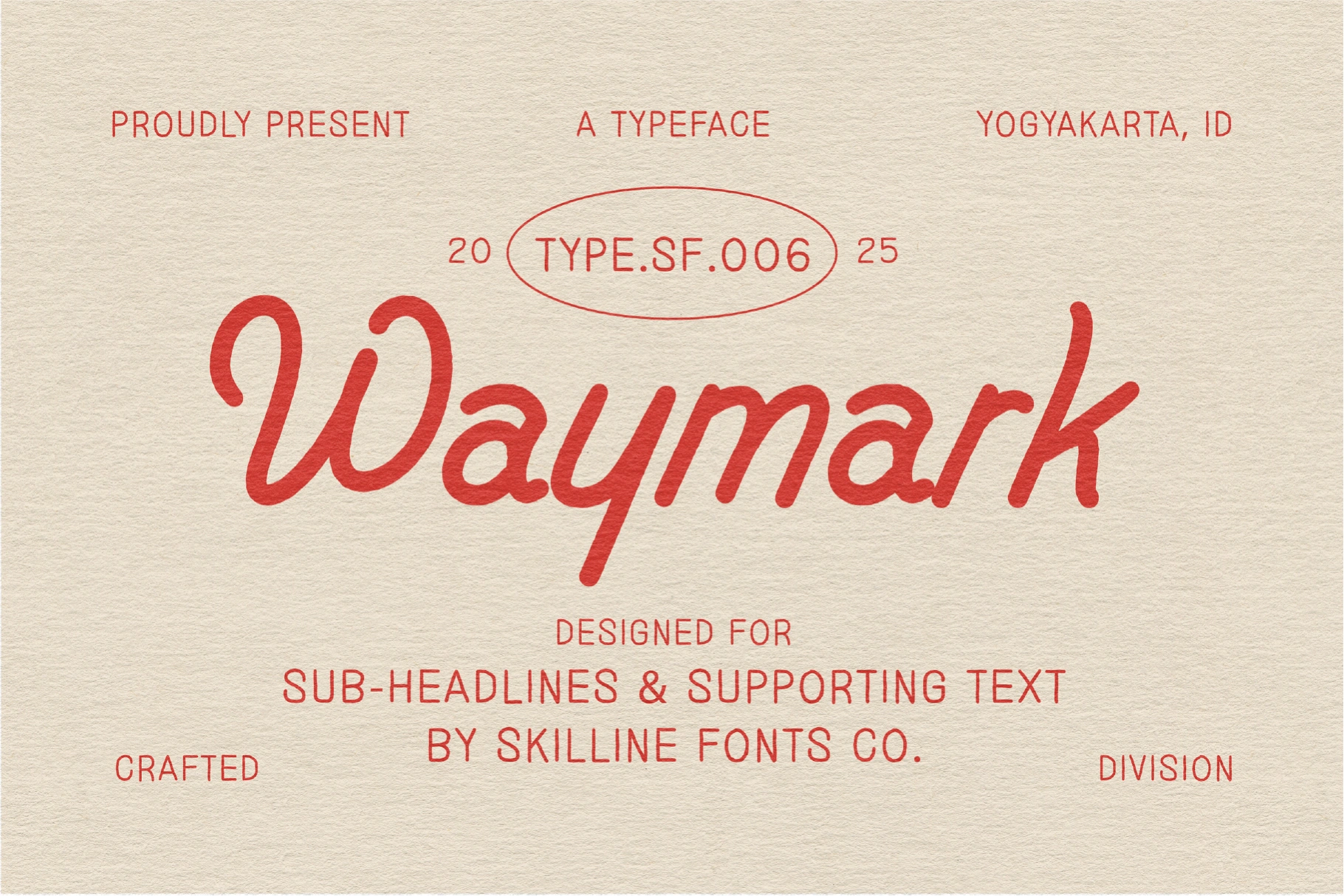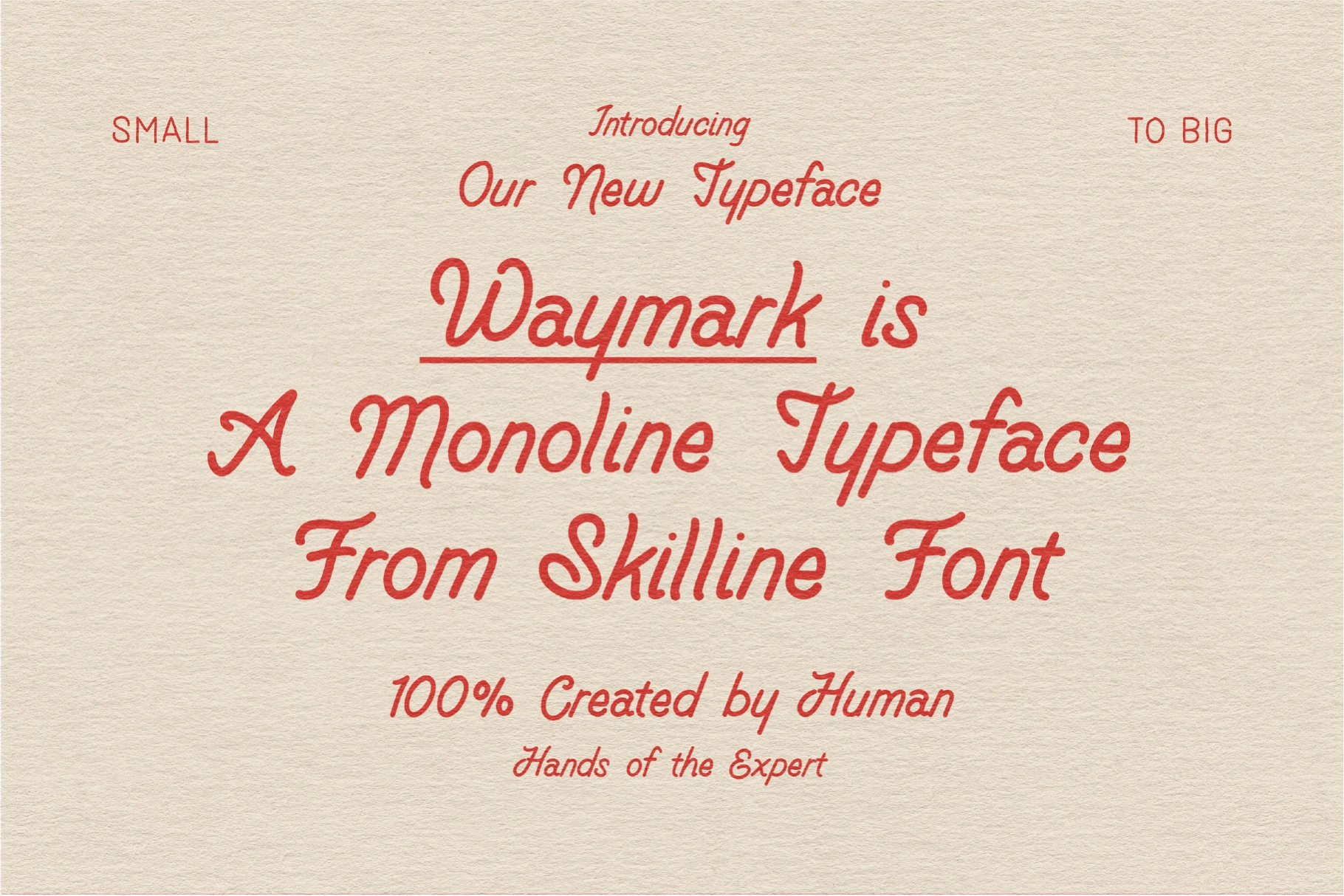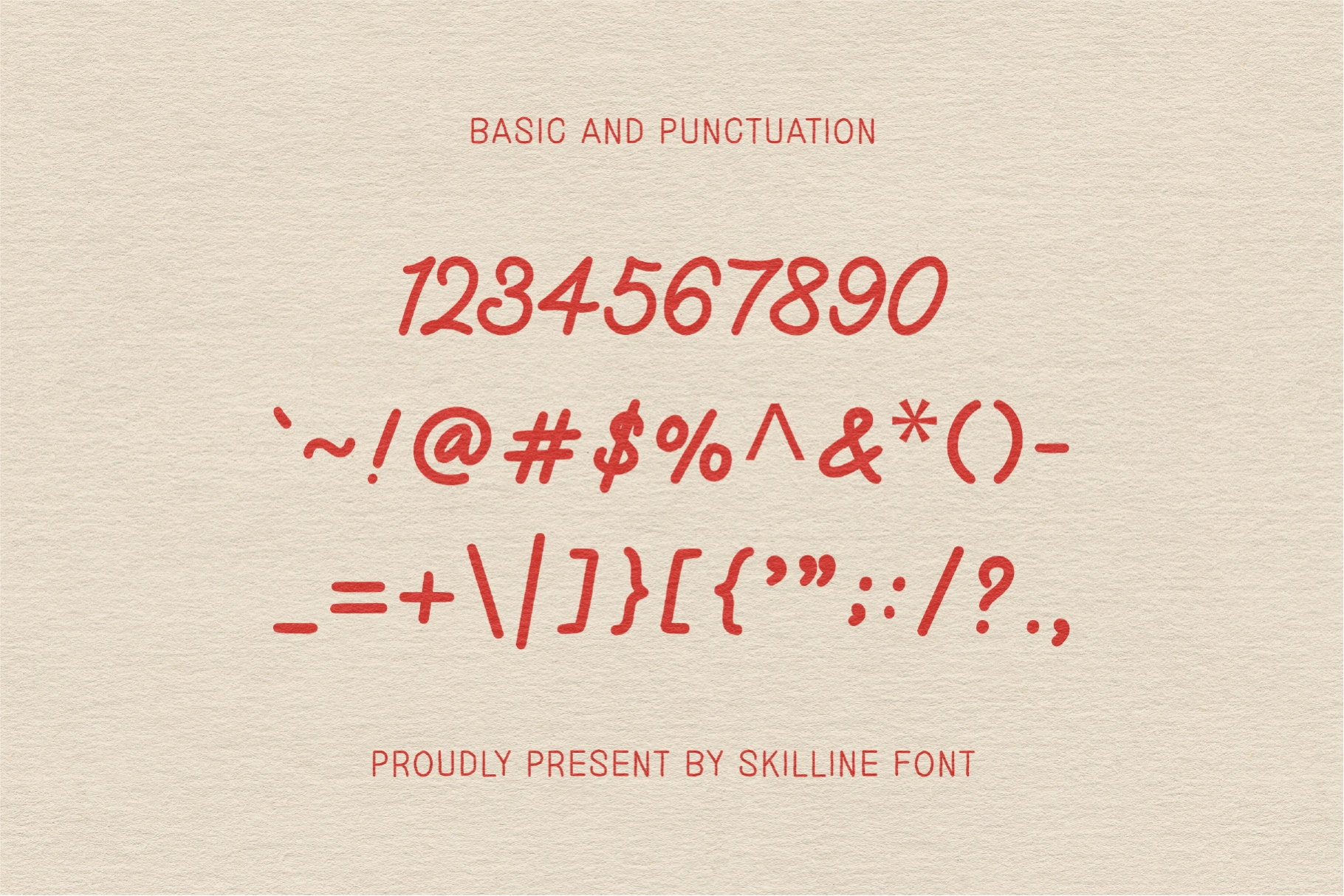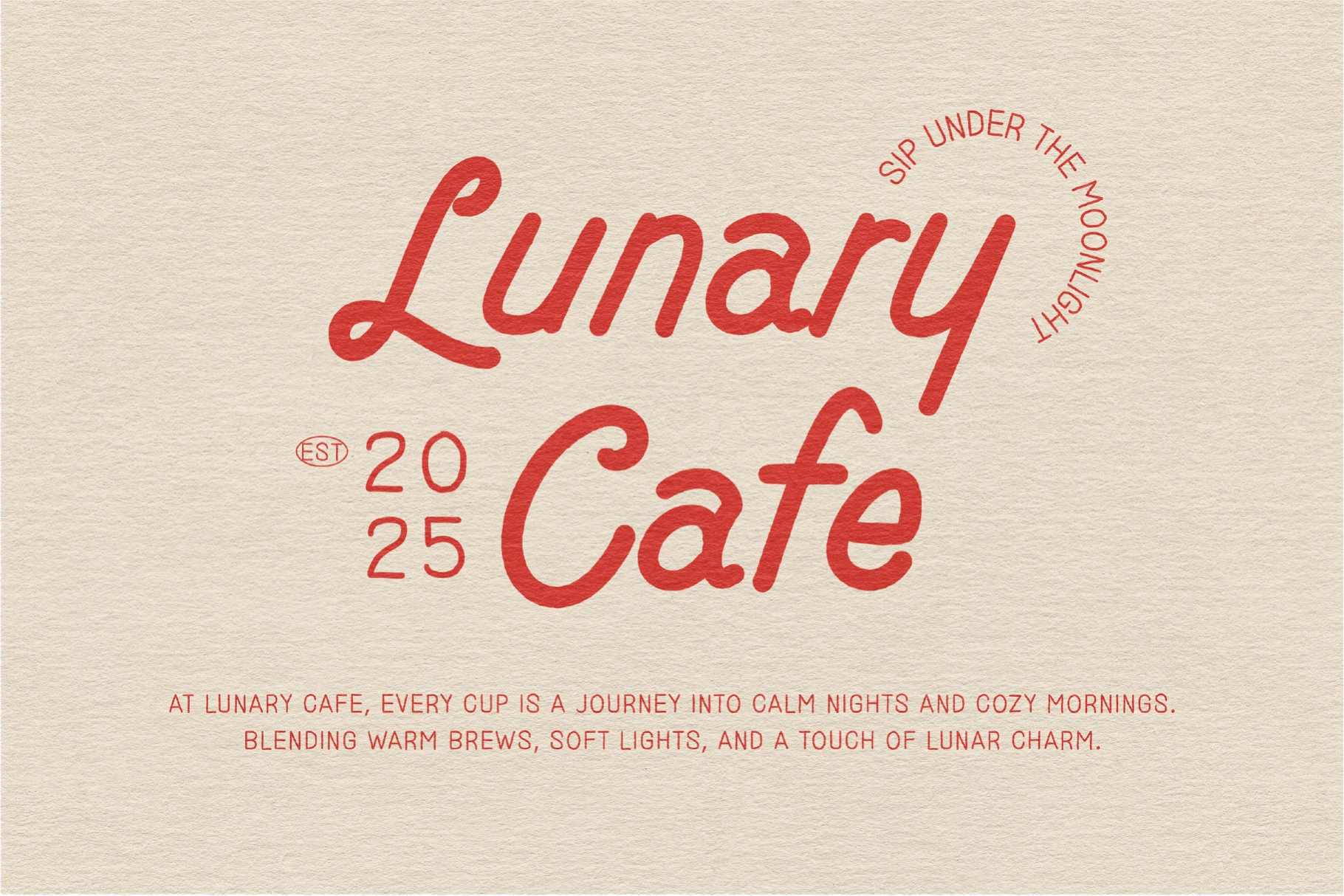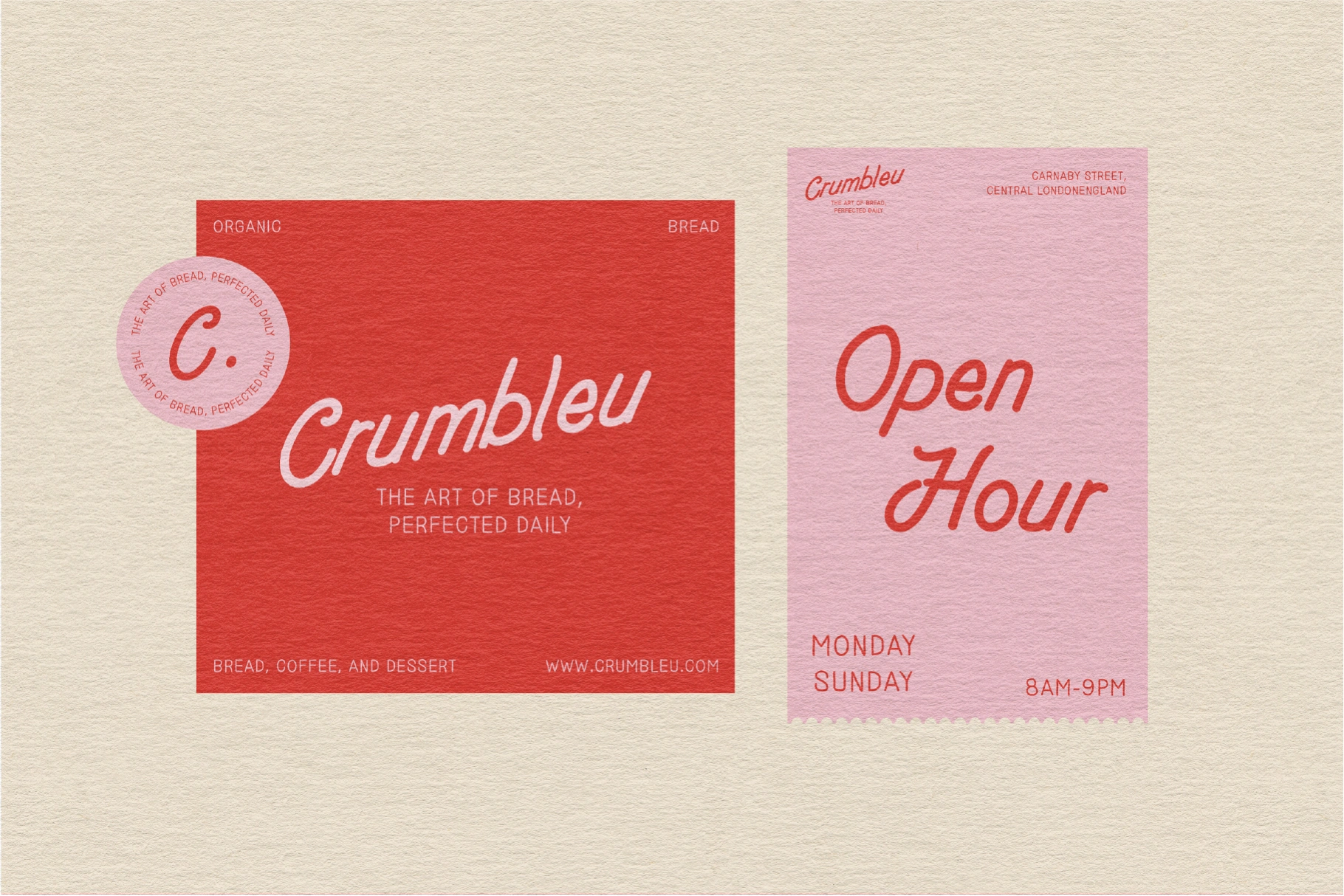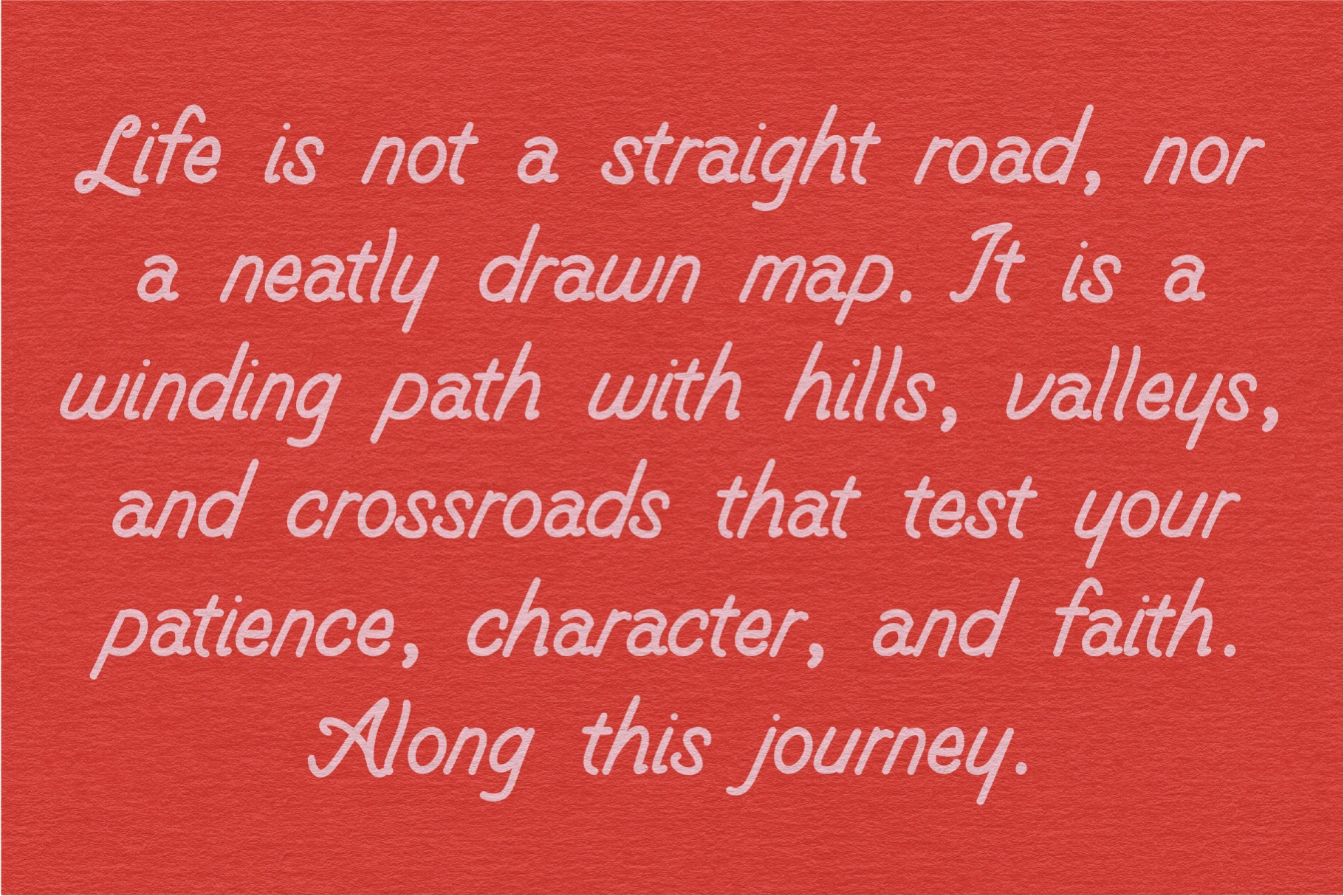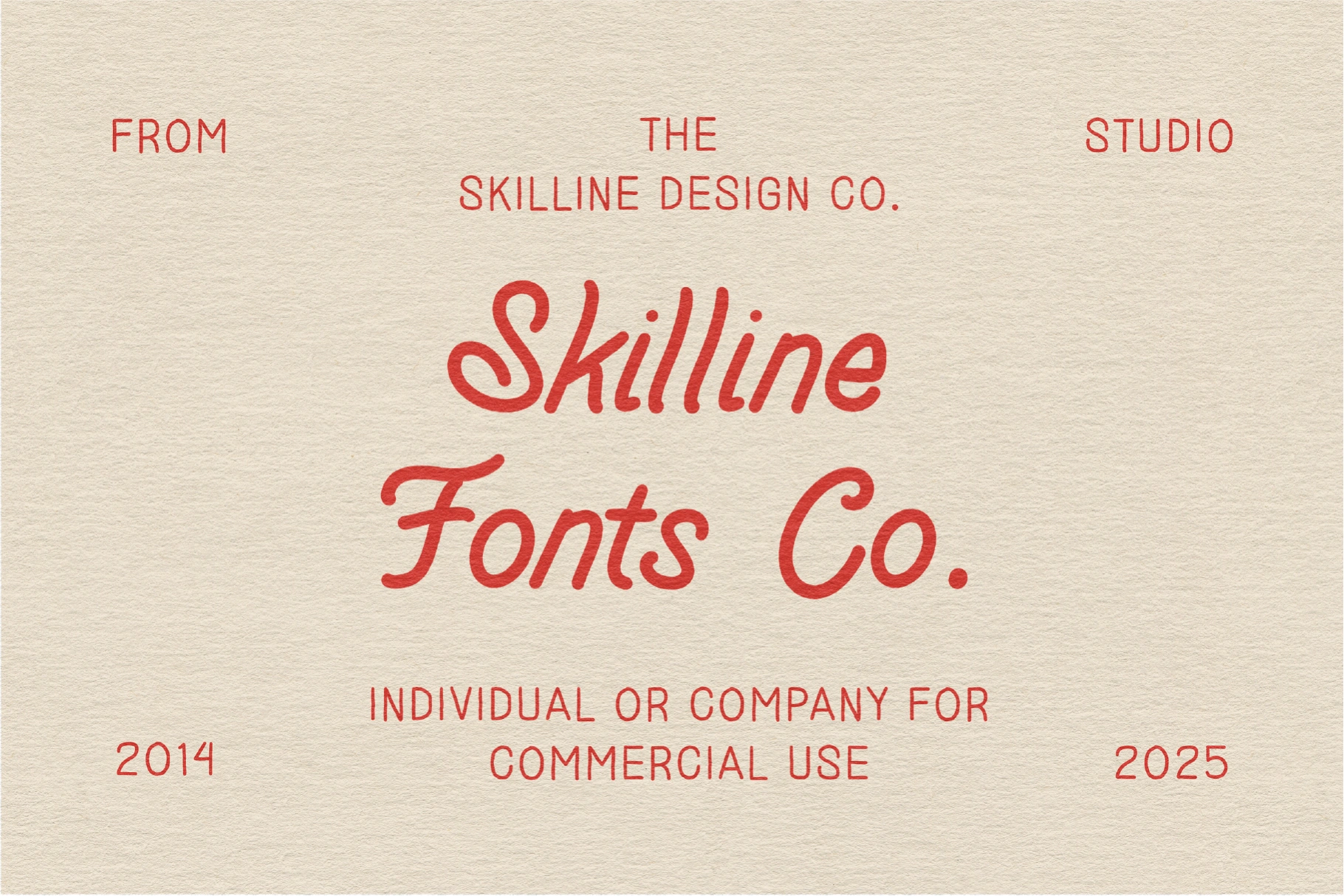
Waymark - Monoline Font
Waymark is a smooth handwritten script font with a balance of casual elegance and vintage charm. Its flowing strokes and natural rhythm make it perfect for designs that need a personal, authentic touch while still maintaining clarity and refinement. Inspired by handwritten notes and classic signage, Waymark brings character and warmth to any creative project.
Crafted for versatility, Waymark works beautifully in sub-headlines, editorial layouts, packaging, apparel graphics, and logo design. The typeface includes uppercase, lowercase, and well-balanced proportions that ensure readability while retaining a handcrafted look. Whether you’re creating branding with personality, eye-catching social media posts, or stylish product designs, Waymark gives your typography a timeless and approachable feel.